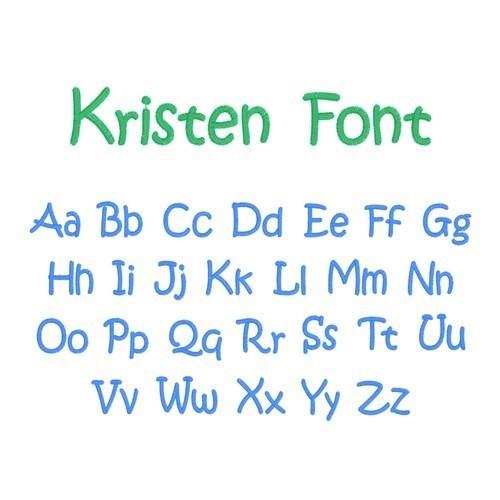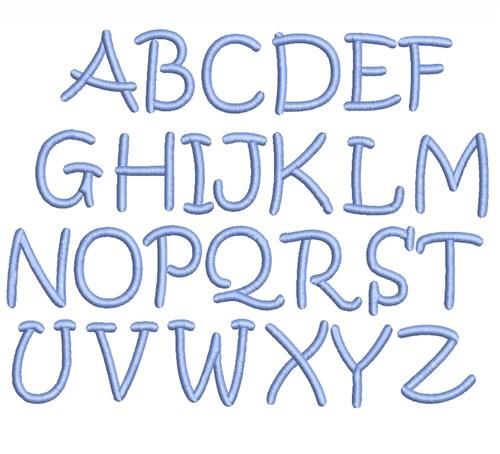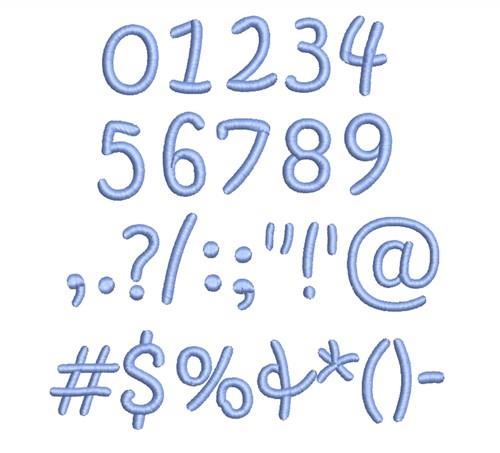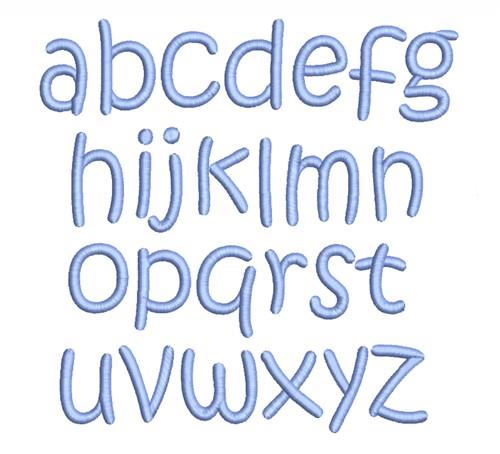
Maya Kreations is happy to present Kristen Font machine embroidery font which has Playful script machine embroidery font with rounded edges, perfect for cheerful projects on blankets and apparel. Available in PES, DST, and 6 other formats. included. If you would like to view more embroidery fonts and alphabets please search our embroidery fonts page.